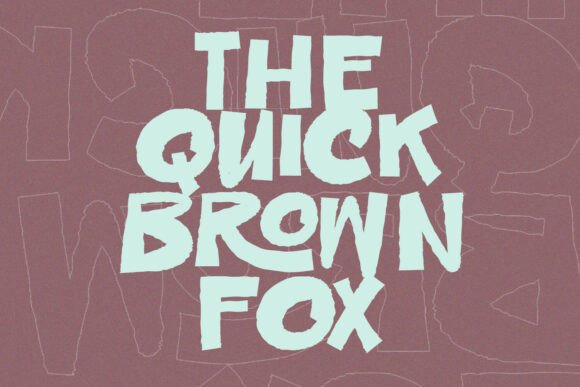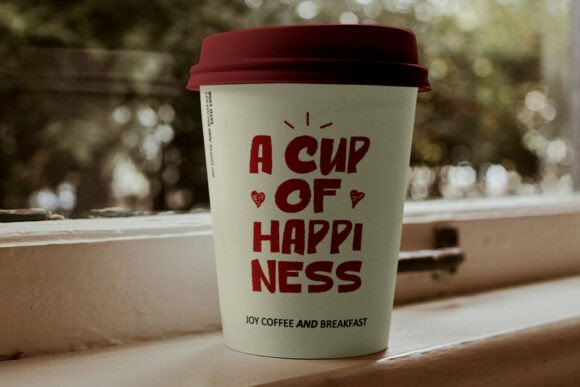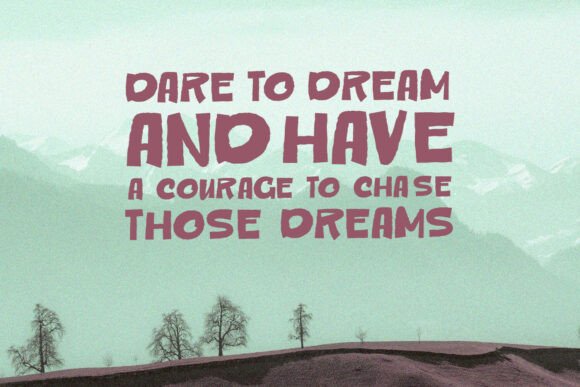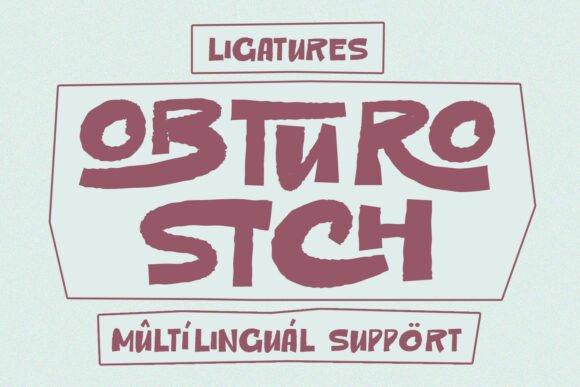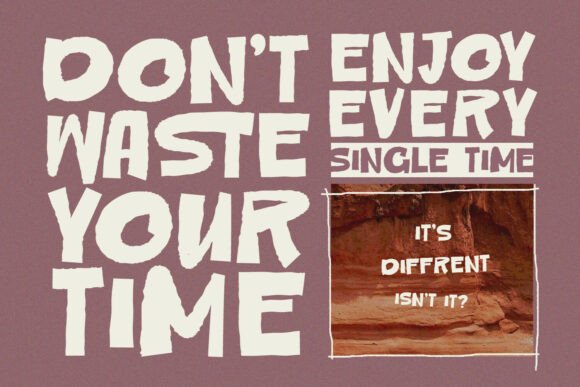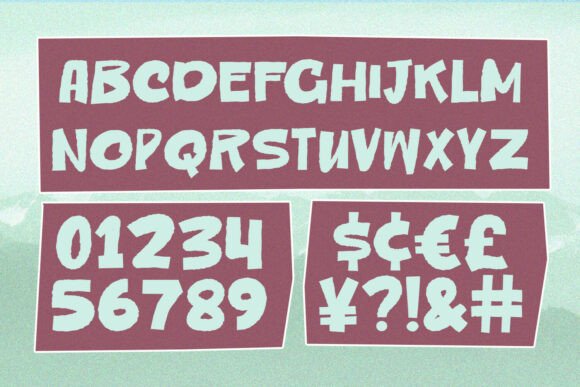
Introducing Chiosen Font: The Ultimate Display Font for Creative Projects
Are you tired of using the same old fonts for your designs? Look no further! Chiosen Font is here to shake things up with its bold, quirky, and playful personality. This hand-crafted display font is perfect for creatives who want to add a touch of fun and energy to their projects.
The Unique Characteristics of Chiosen Font
Chiosen Font boasts a unique, hand-crafted design with slightly rough edges, giving it a spontaneous and casual look. This font is perfect for designers who want to add a personal touch to their work. The rough edges also add a sense of authenticity, making it ideal for projects that require a more organic feel.
Chiosen Font is incredibly versatile and can be used for a wide range of projects, including:
• Comic designs: Add a playful touch to your comic books or graphic novels with Chiosen Font.
• Children’s books: Bring your story to life with a font that’s fun, energetic, and engaging.
• Posters: Create eye-catching posters that grab attention with Chiosen Font.
• YouTube thumbnails: Stand out from the crowd with a bold and quirky font that showcases your personality.
• Any project that needs an energetic and lighthearted vibe: From invitations to social media graphics, Chiosen Font is the perfect choice.
Why Choose Chiosen Font?
So, why should you choose Chiosen Font for your next project? Here are just a few reasons:
• Confidence and playfulness: Chiosen Font exudes confidence and playfulness, making it perfect for creatives who want to stand out from the crowd.
• Unique and eye-catching: This font is sure to grab attention with its bold and quirky design.
• Hand-crafted and authentic: The rough edges and hand-crafted design give Chiosen Font a sense of authenticity and personality.
• Versatile: Chiosen Font can be used for a wide range of projects, from digital designs to print materials.
Tips for Using Chiosen Font
Here are a few tips for using Chiosen Font in your designs:
• Pair it with a simple font: Balance out the boldness of Chiosen Font by pairing it with a simple, clean font.
• Experiment with colors: Chiosen Font looks great in bright, bold colors, but don’t be afraid to experiment with different color combinations.
• Use it sparingly: While Chiosen Font is perfect for headlines and titles, use it sparingly to avoid overwhelming your design.
Chiosen Font is the perfect choice for creatives who want to add a touch of fun and personality to their designs. With its bold, quirky, and playful design, this font is sure to grab attention and leave a lasting impression. Whether you’re working on a comic book, children’s book, poster, or YouTube thumbnail, Chiosen Font is the ultimate display font for creative projects.
Get Ready to Stand Out with Chiosen Font